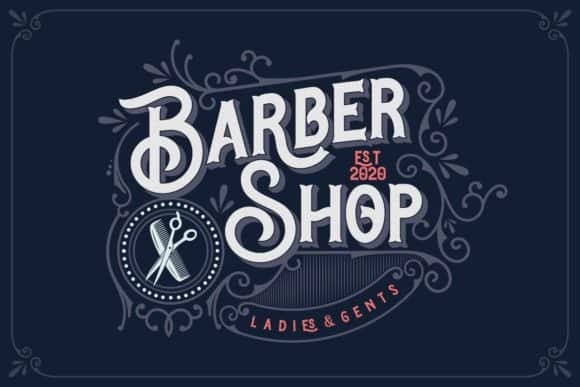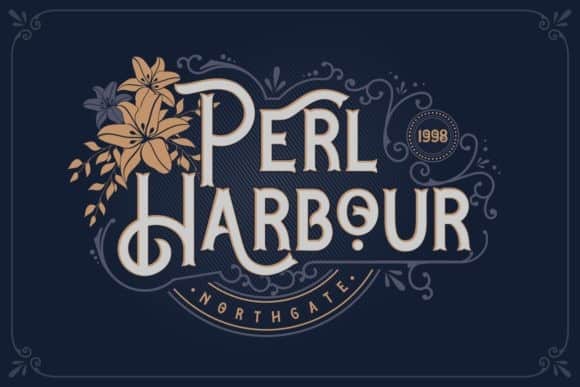
Blue Spirits Display Font
Blue Spirits Display Font comes with clean shapes and elegant displays. Made from font designer named HansCo. It’s a truly original display font with a vintage feel. It will add an old-timey charm to any design project!. Equipped with a lot of alternates and ligatures that you can combine to ease your design projects, also with extra ornamental graphics. Blue Spirits Display Font is perfect for a headline, labels, logo, apparel, letterhead, logotype, branding, poster, stickers, storefront, signboard, and many more!